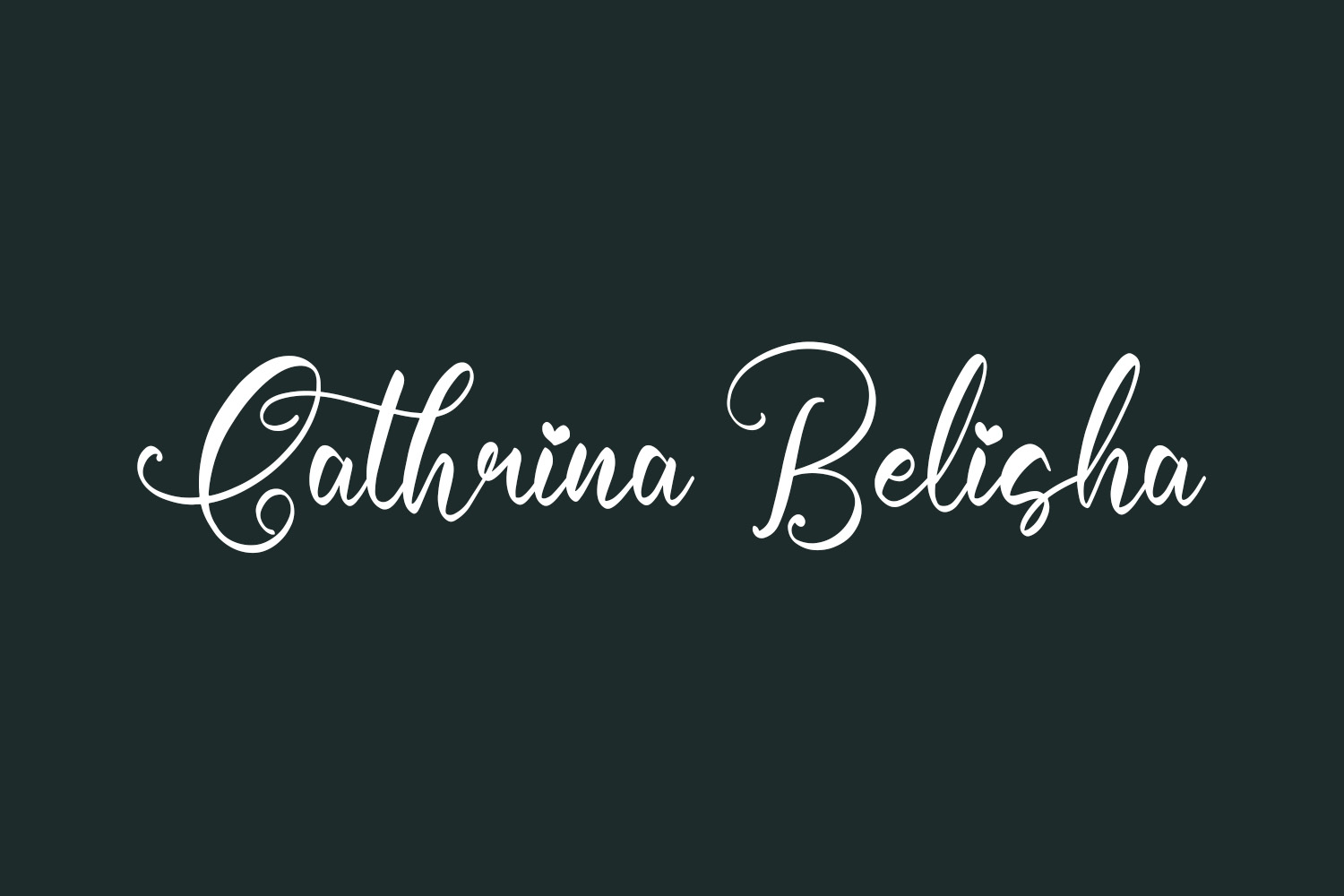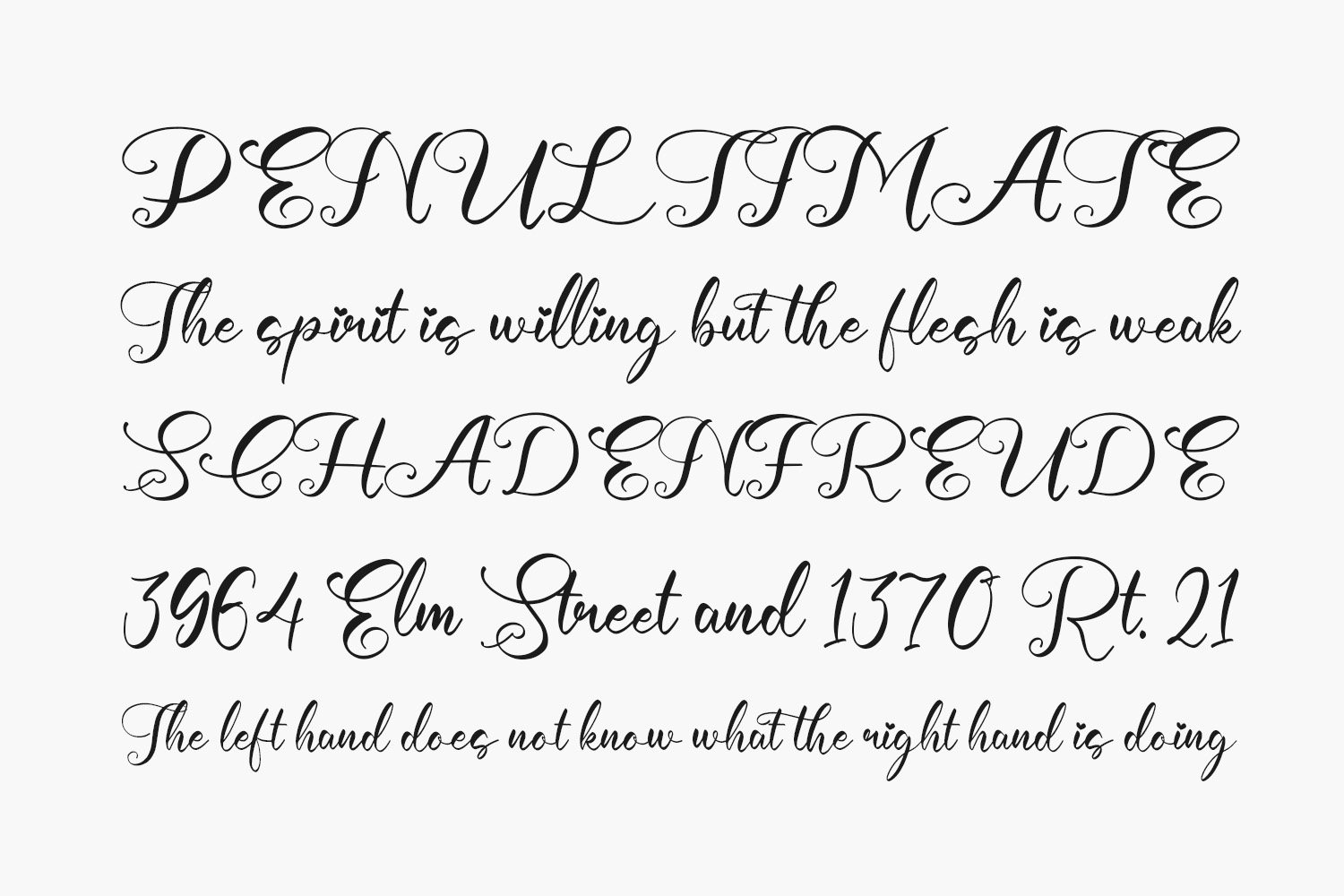
Cathrina Belisha Free Font Family is an elegant script font with a contemporary atmosphere and impeccable form, inspired by a timeless classic calligraphy. Not too thin and not too thick, balanced and varied, this font was designed to enhance the beauty of your projects. Cathrina Belisha Free Font Family was designed by Perspectype Studio and is free for personal use only. Please purchase the full version for commercial use.